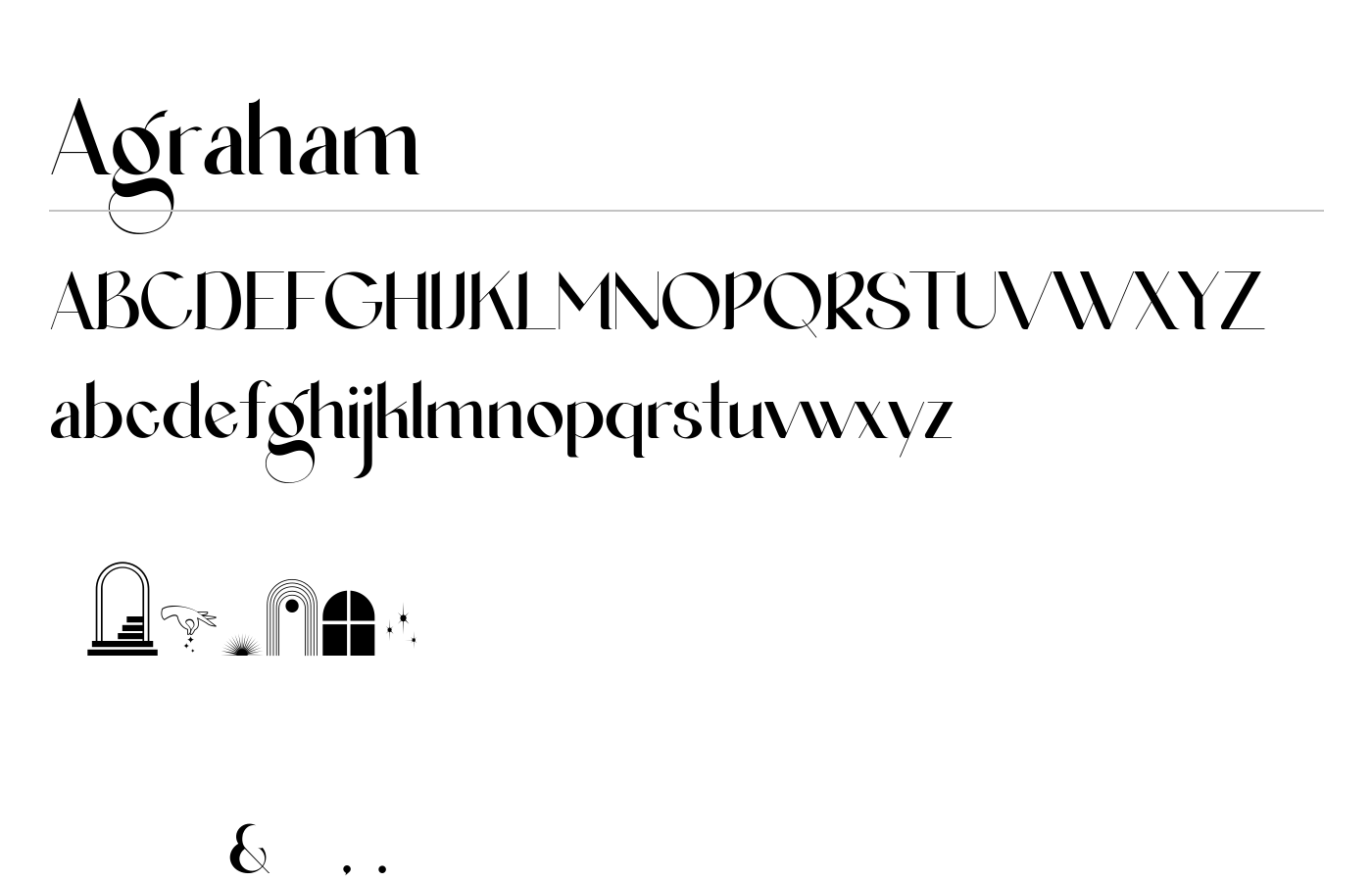
Agraham is a sophisticated serif font with a high-contrast, modern Didone style that features elegant, sharp strokes and slender, bracketed serifs. Its tall x-height and distinctive character shapes, such as the flowing lowercase "g" and stylized uppercase letters, lend a luxurious and refined personality ideal for high-end branding, editorial layouts, and striking headlines. This font combines classic elegance with contemporary flair, making it perfect for fashion, beauty, and lifestyle projects seeking a polished, artistic touch.
Agraham Font
About Agraham Font